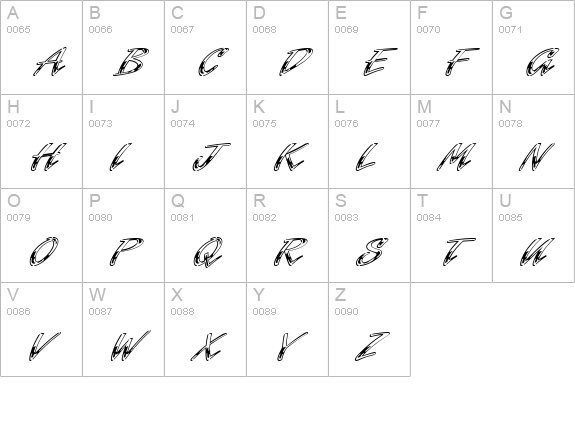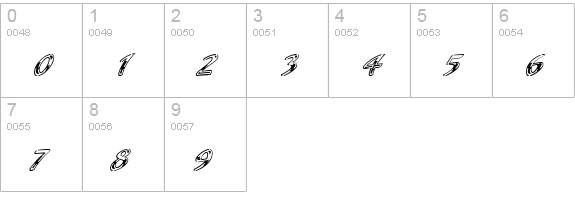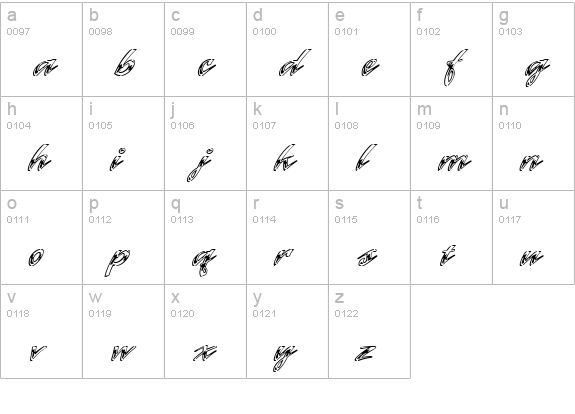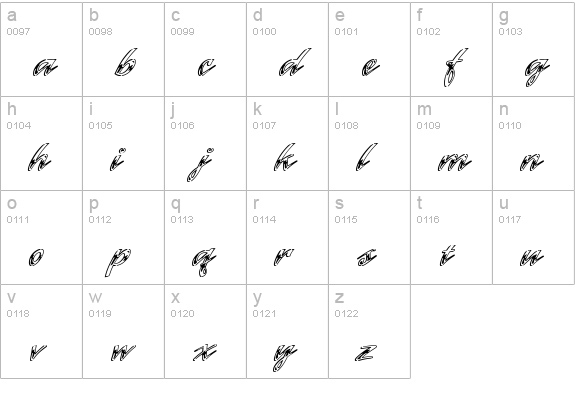
Introducing Laser ICG Chrome Alt font, a stunning display typeface that exudes futuristic elegance and sophistication. With its sleek and sharp letterforms, this font is perfect for projects that demand a modern and high-tech aesthetic. Laser ICG Chrome Alt font features a unique combination of geometric shapes and intricate details, giving it a distinct and captivating appearance. Each character is meticulously crafted to ensure legibility and visual impact, making it an excellent choice for headlines, logos, and branding materials. This font's versatility is further enhanced by its alternate version, which offers additional design options and creative possibilities. Whether you're looking to add a touch of edginess or a dash of refinement to your designs, Laser ICG Chrome Alt font has got you covered. But that's not all - the best part is that Laser ICG Chrome Alt font is FREE! Yes, you read that right. This amazing font is freely available to download at FontsMarket.com. So whether you're a professional designer, a student, or an enthusiast, you can now access this remarkable font without any cost. Don't miss out on this incredible opportunity to elevate your design projects with Laser ICG Chrome Alt font. Download it for free today at FontsMarket.com and let your creativity soar to new heights.